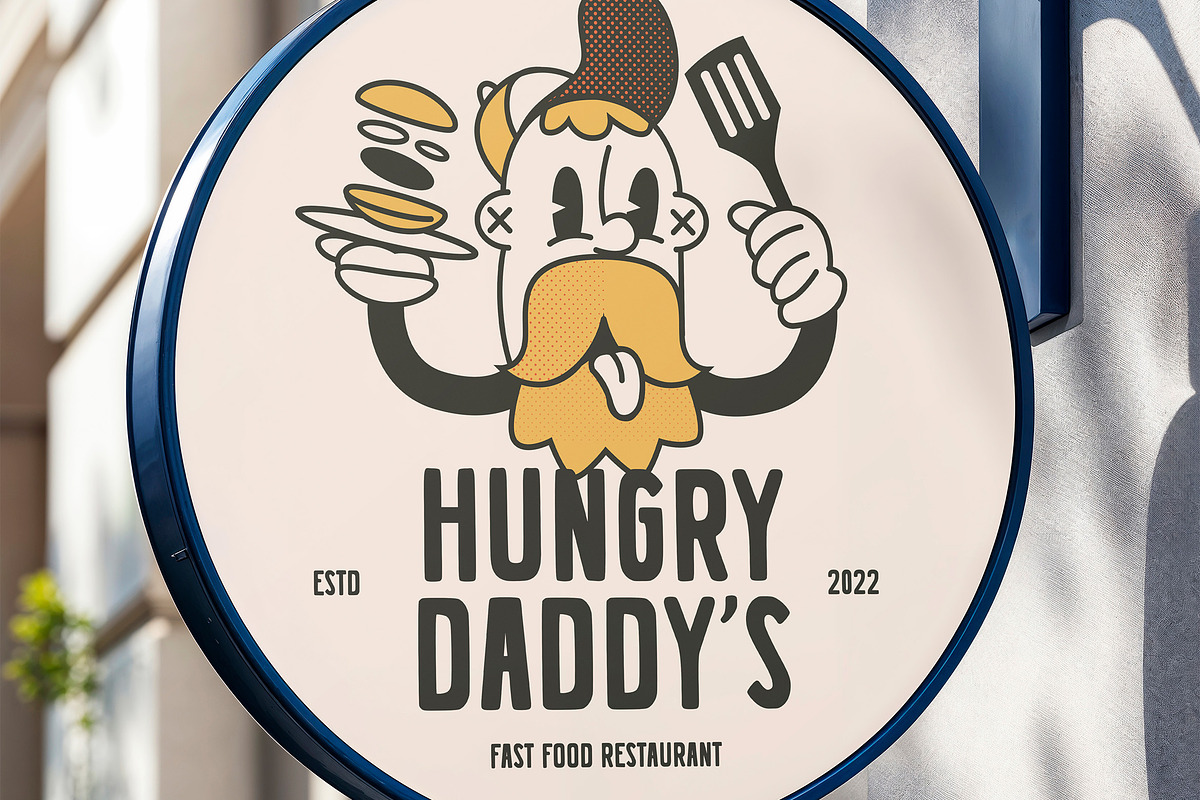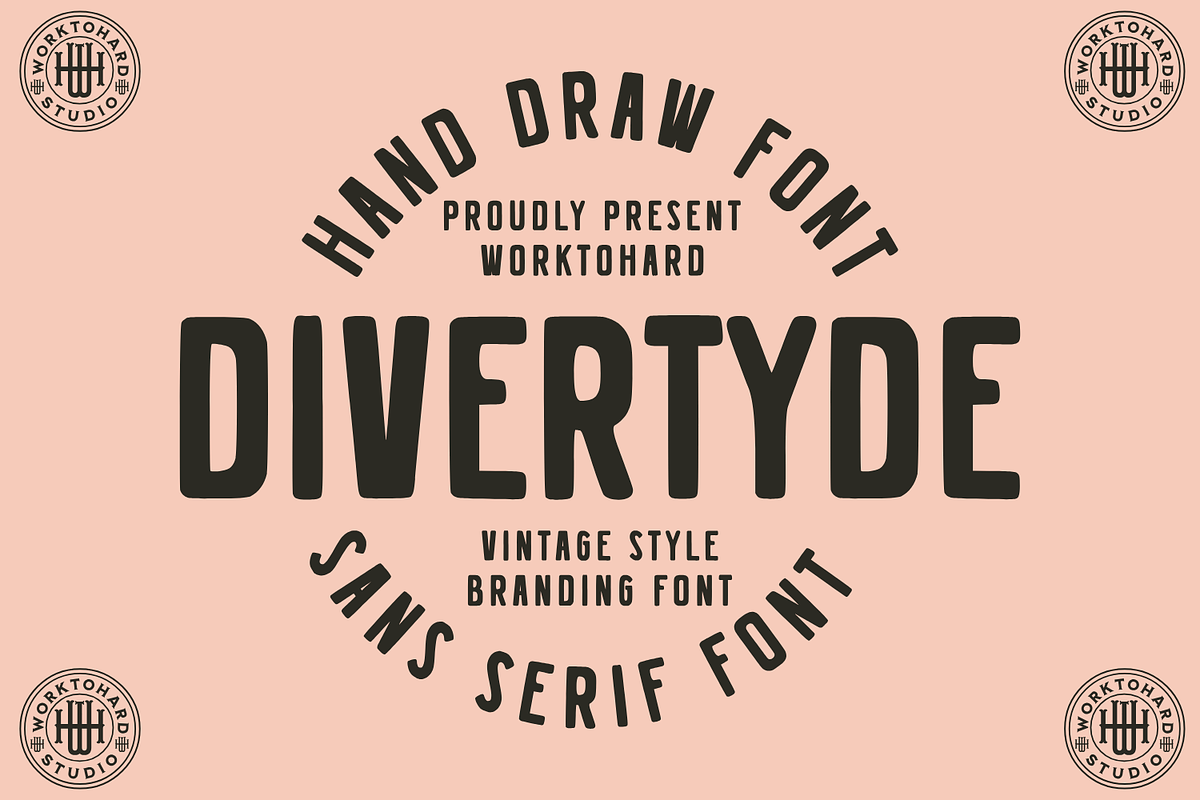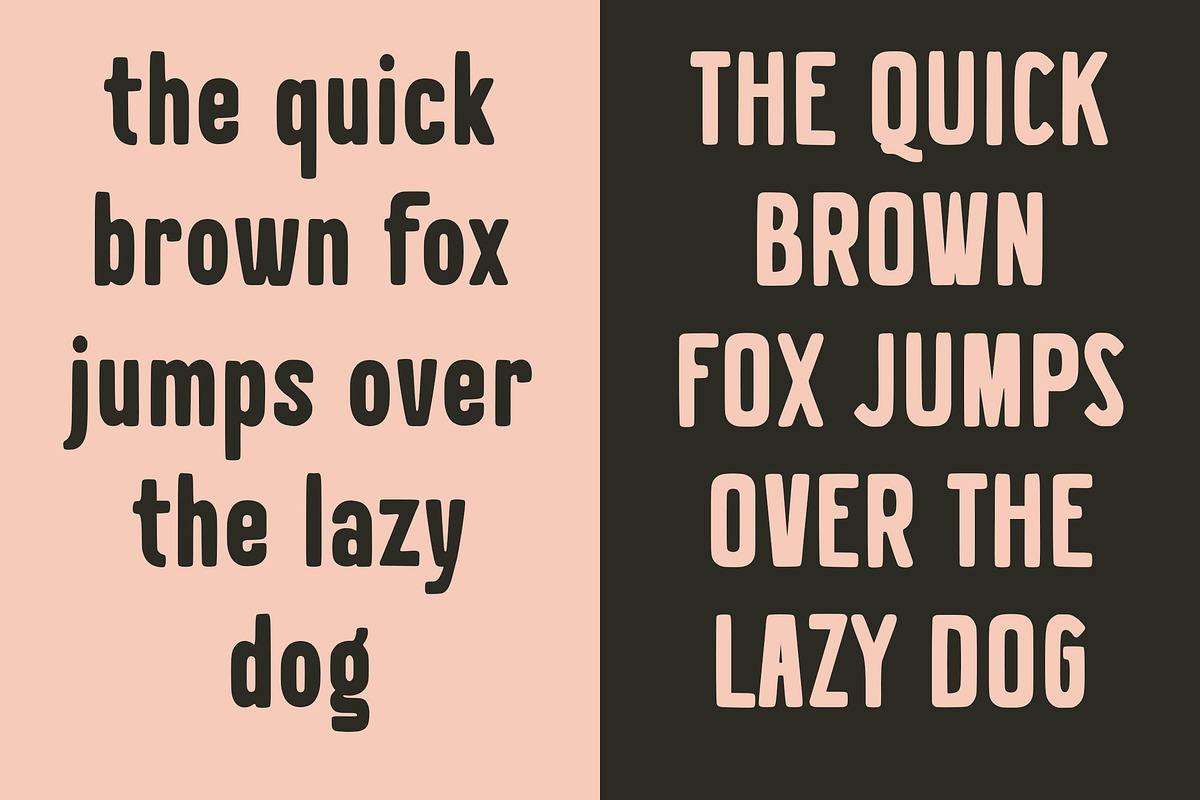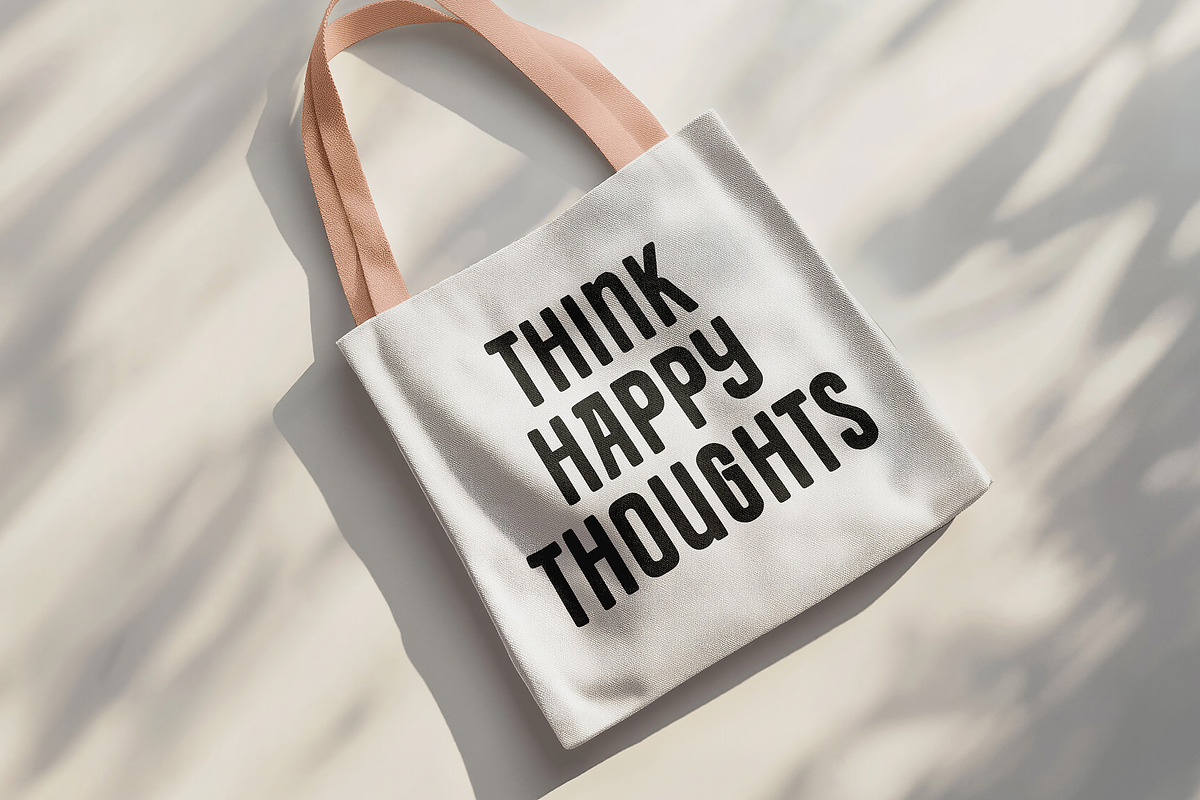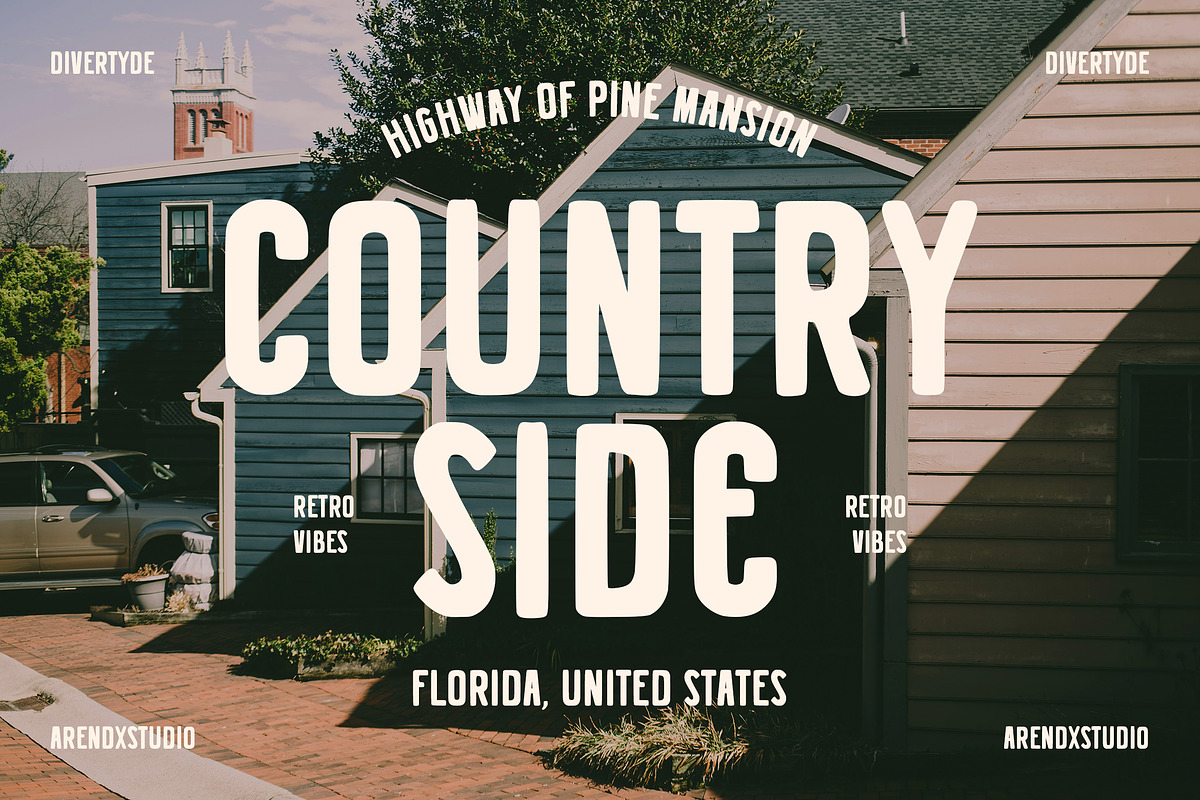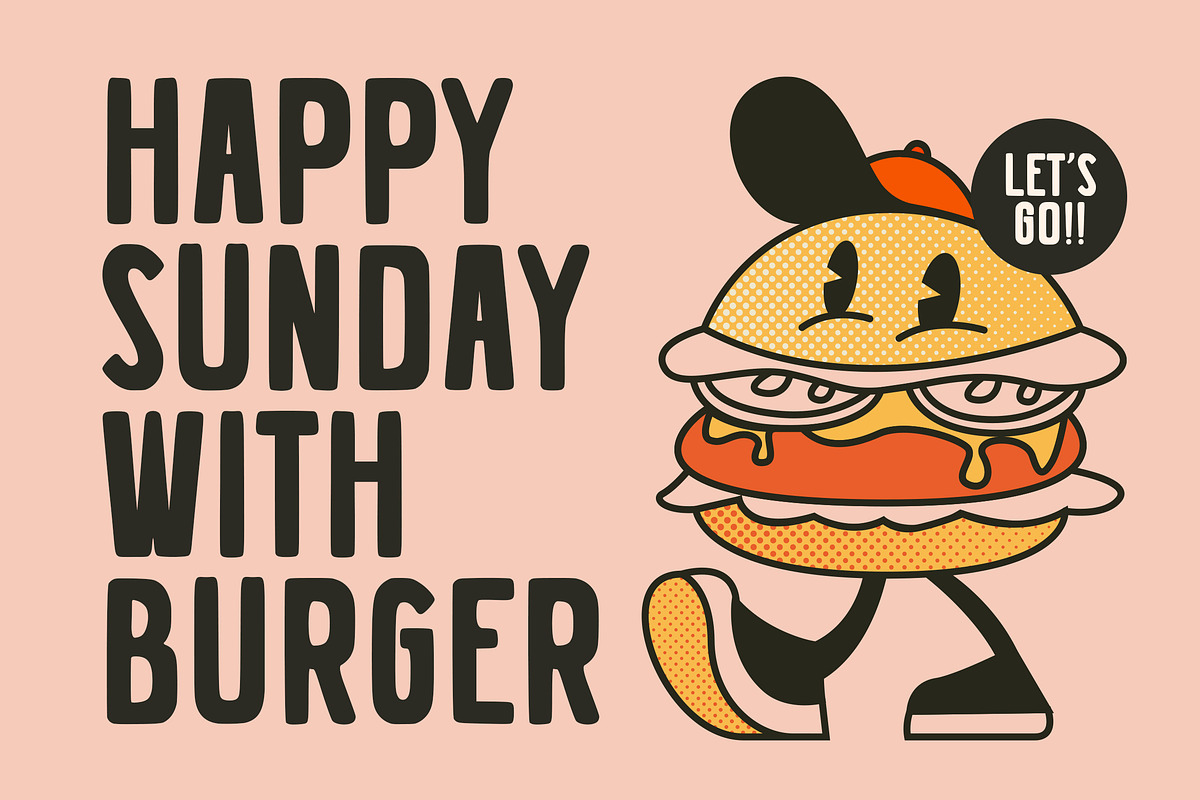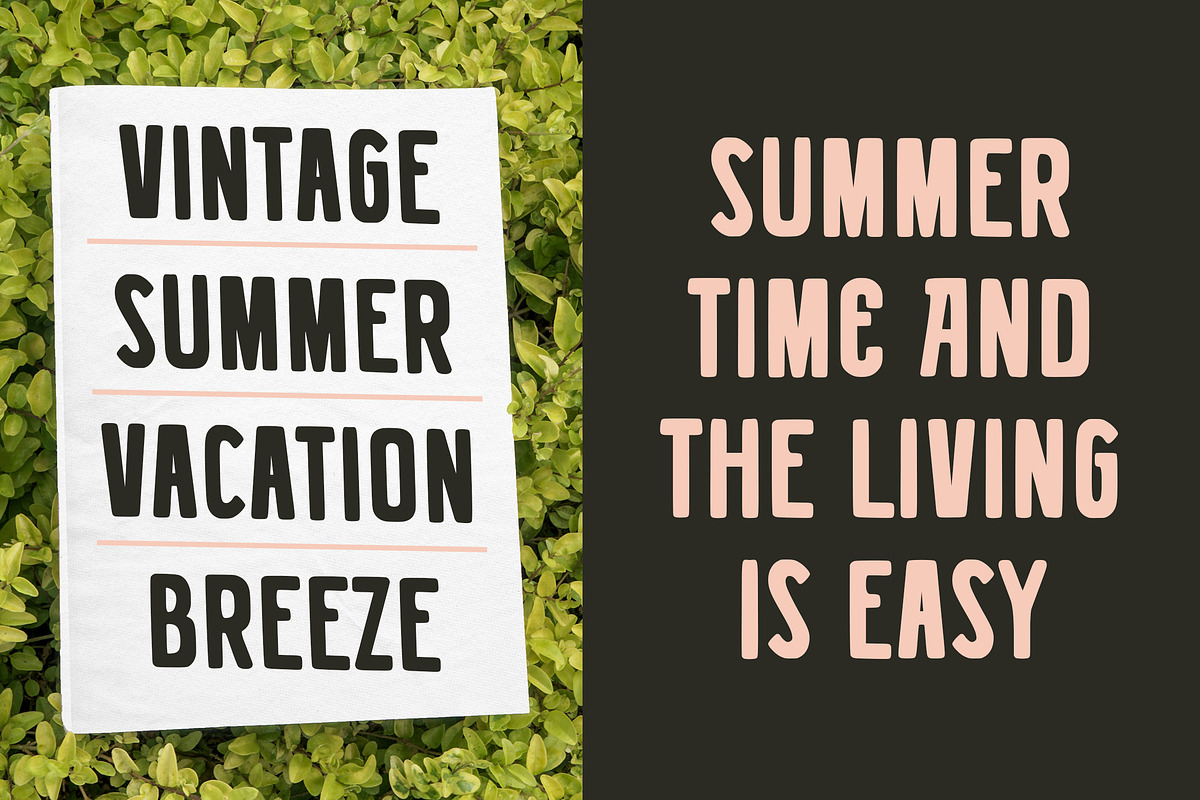
Divertyde – Hand Drawn Vintage Font
Divertyde – Hand Drawn Vintage Sans Serif Font
Divertyde is a bold, handcrafted sans serif font designed to bring a touch of vintage charm to your branding projects. Created by Worktohard Studio, this typeface blends strong, clean lines with a hand-drawn personality, making it perfect for logos, packaging, apparel, signage, and other creative design work.
Inspired by classic retro typography, Divertyde offers a unique combination of structure and playfulness. Its slightly irregular strokes give it an authentic, handmade feel without compromising readability or impact.
- Hand-drawn sans serif style
- Bold and highly legible
- Great for vintage, retro, or rustic branding
- Perfect for logos, badges, labels, posters, and more
Bring character and craftsmanship into your next project with Divertyde – a font that speaks loud with style.